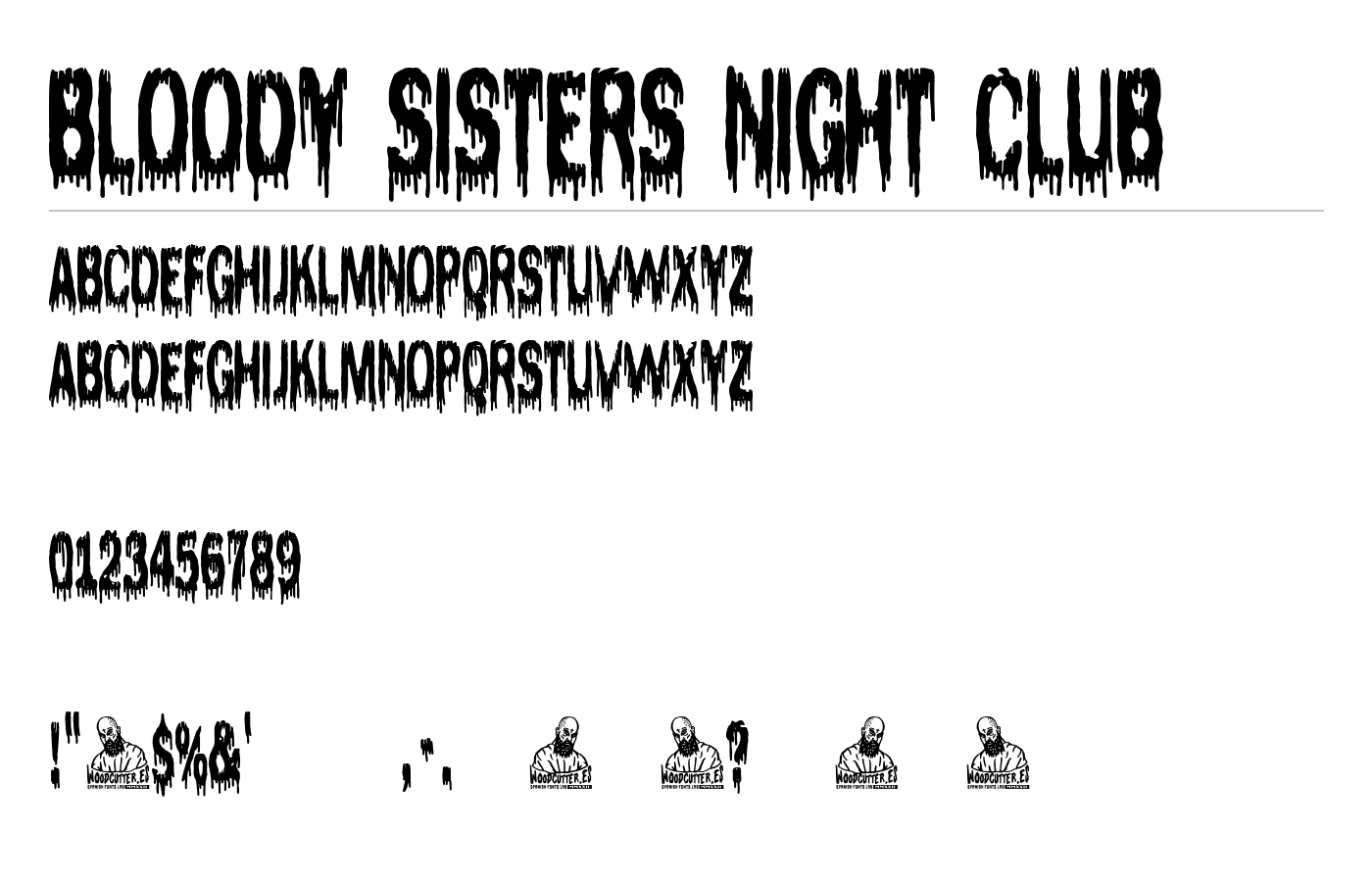
Bloody Sisters Night Club is a bold, condensed display font with a dripping, eerie effect that mimics dripping paint or blood, perfect for creating a spooky or horror-themed atmosphere. Its uppercase-only design features high contrast between thick strokes and the jagged drips, giving it a dramatic and unsettling personality ideal for Halloween events, horror movies, or edgy party branding. This font works best in headlines, posters, and logos where a striking and memorable impact is needed.
Bloody Sisters Night Club Font
About Bloody Sisters Night Club Font